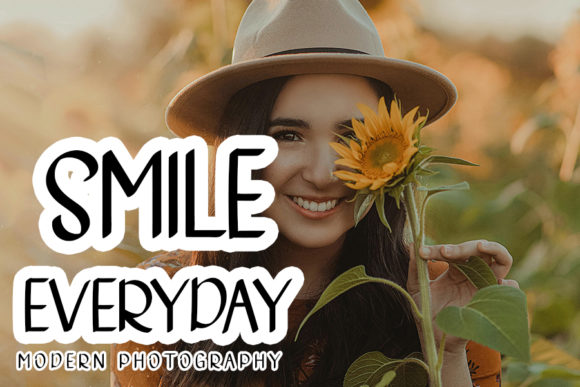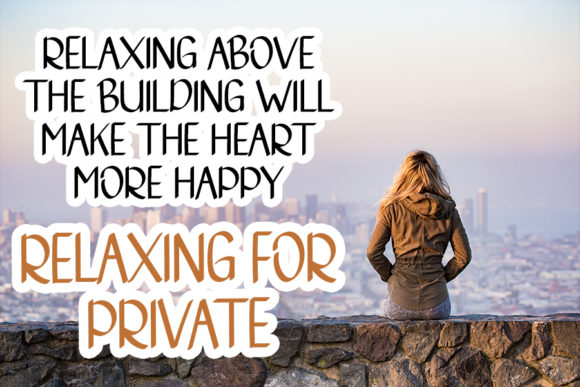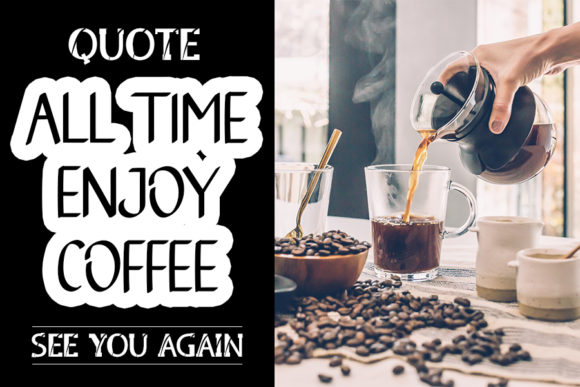
Hello Saturday Font
About Hello Saturday Font
Hello Saturday is a simple, neat and very fitting handwritten font. Create lovely designs with this amazing and beautiful font.